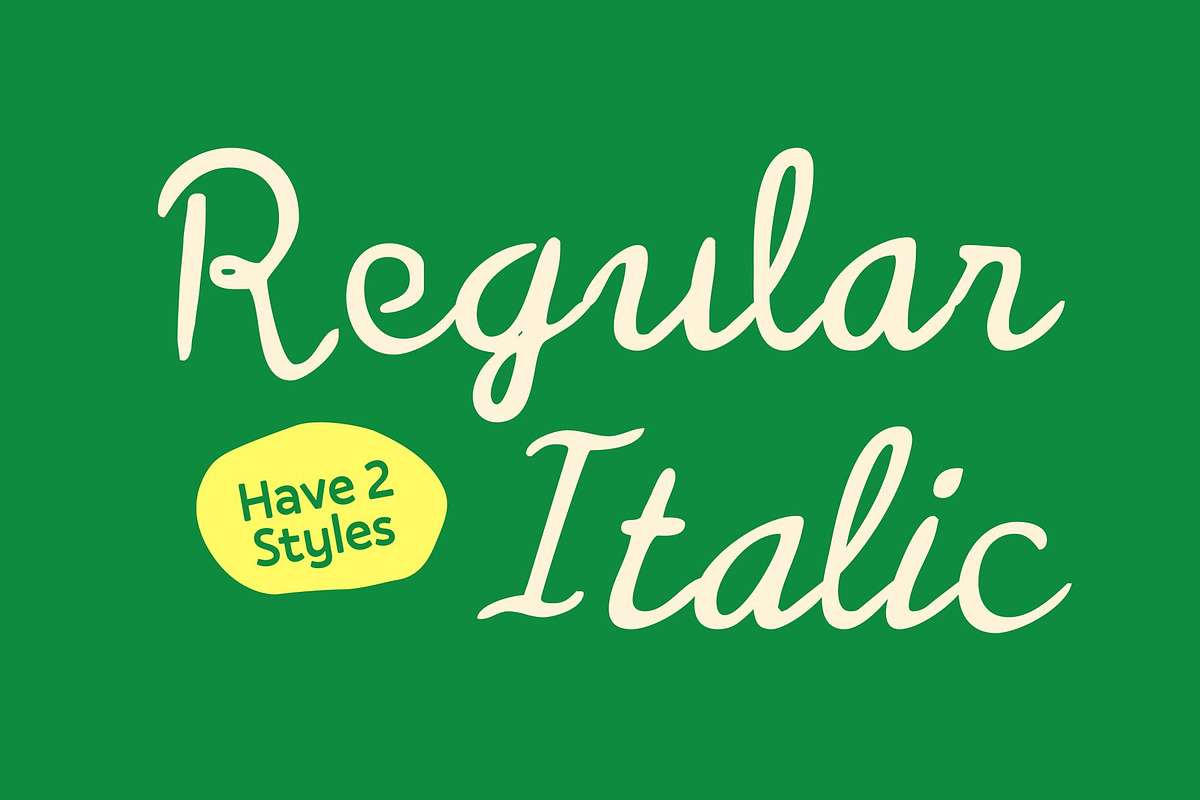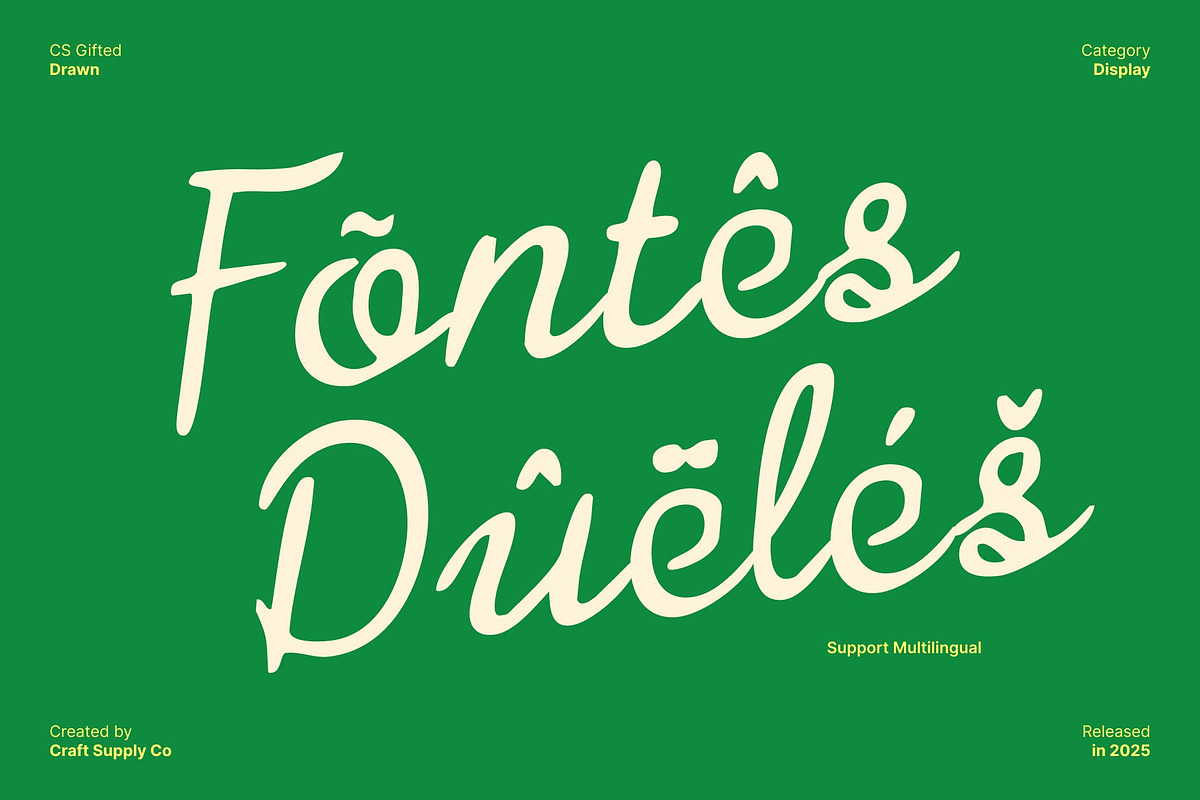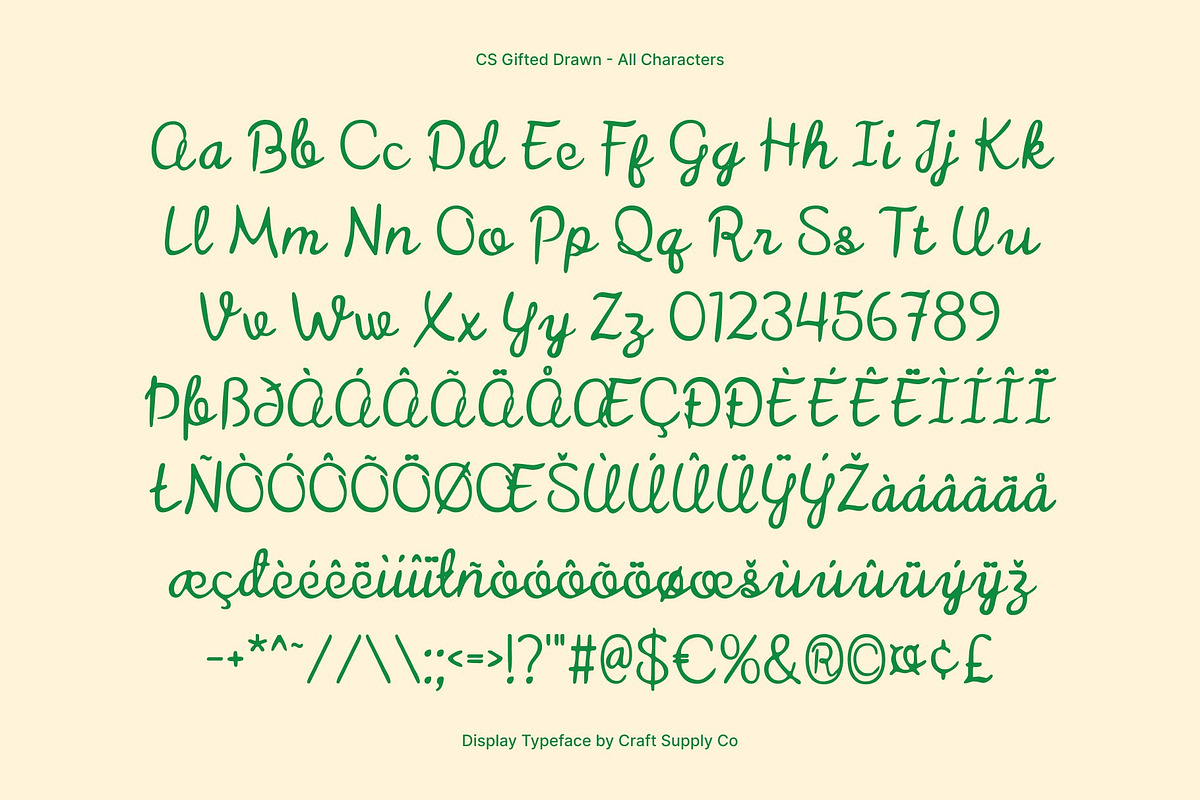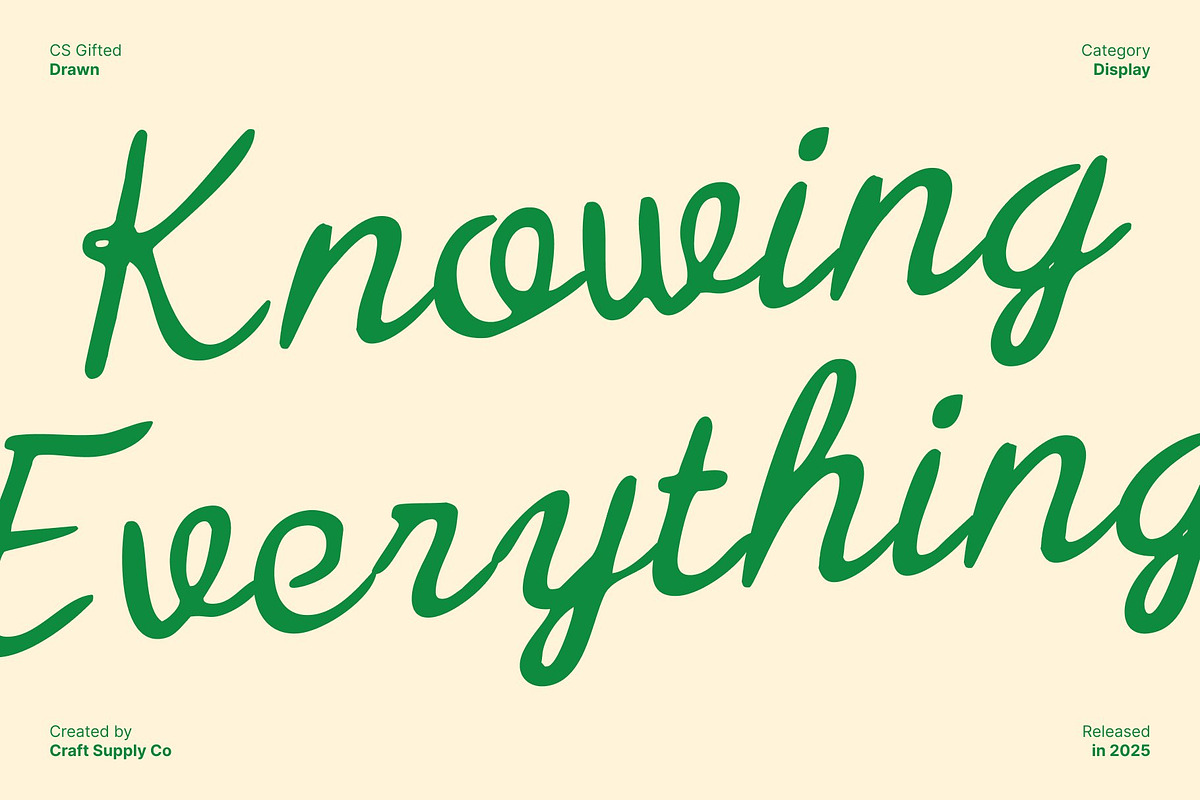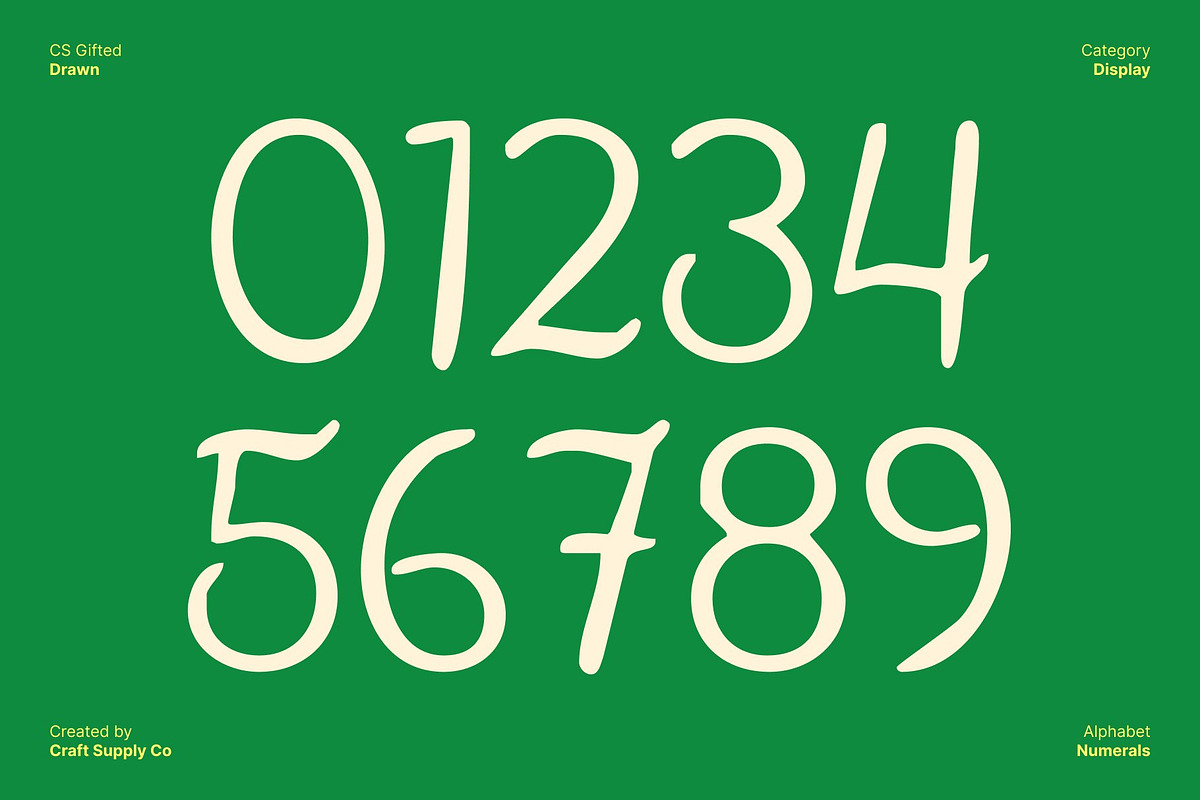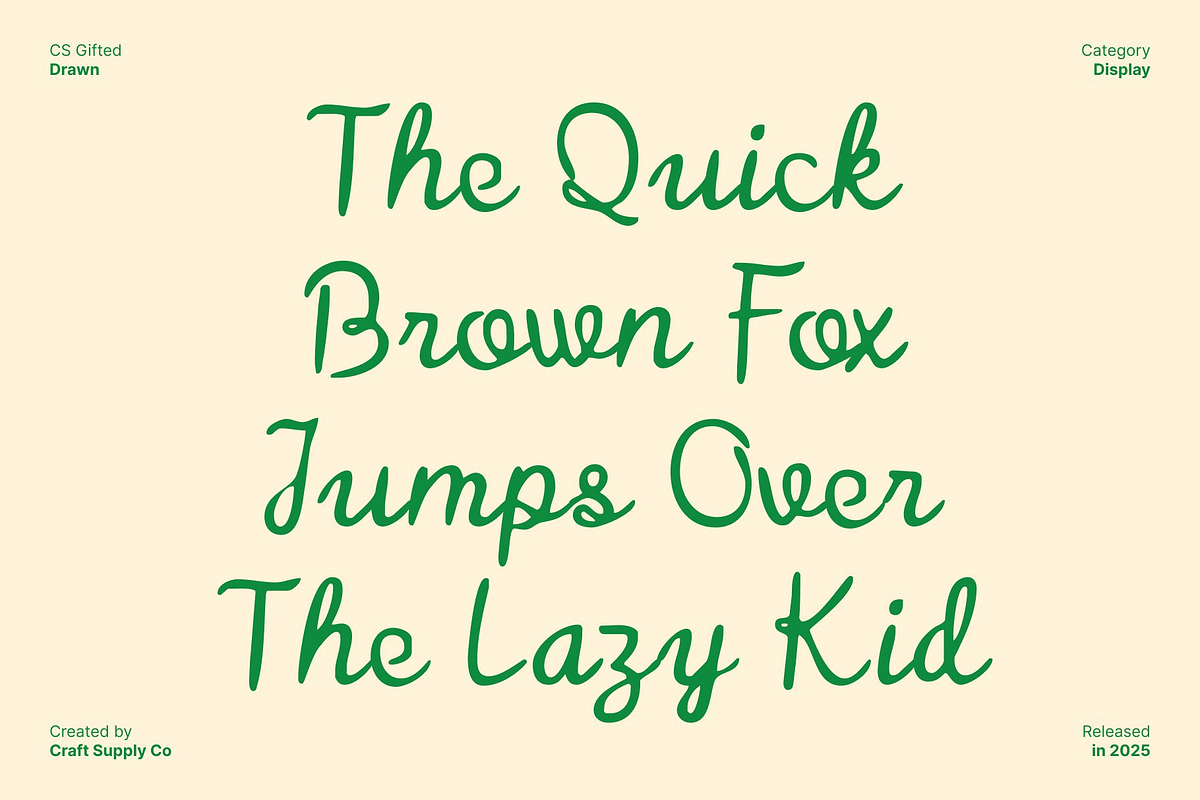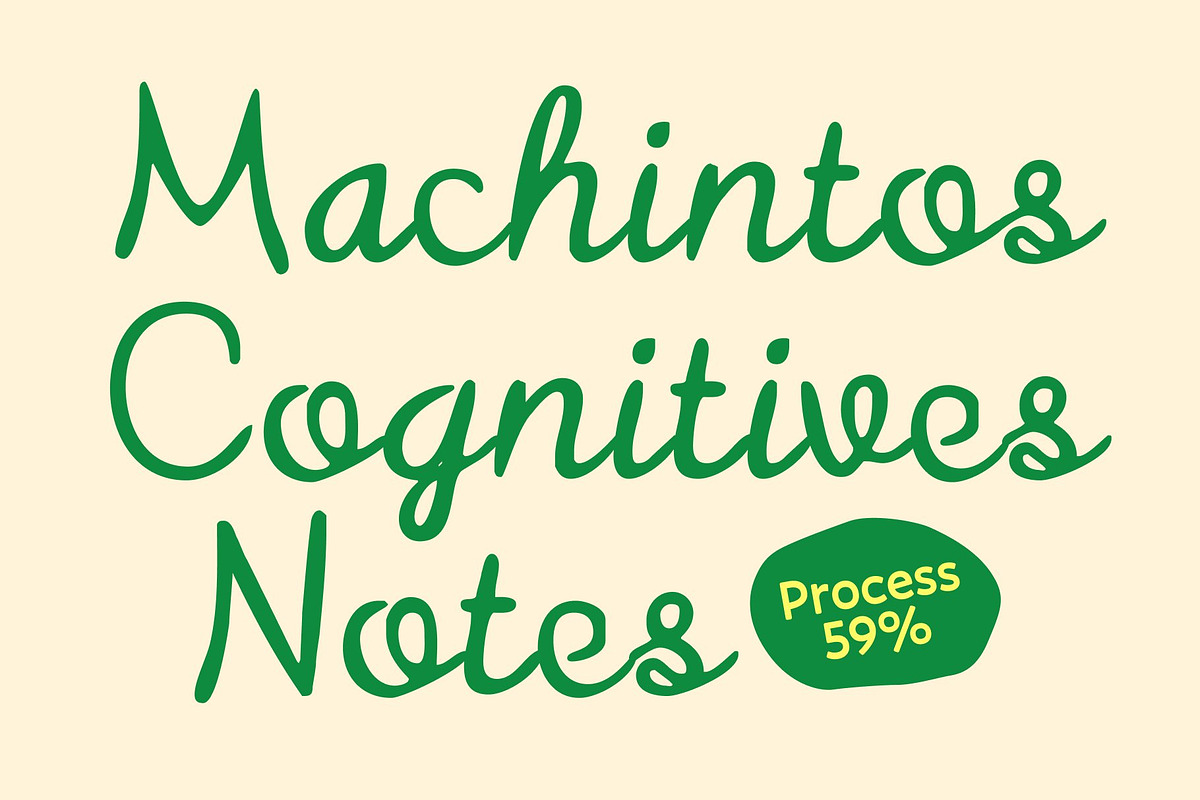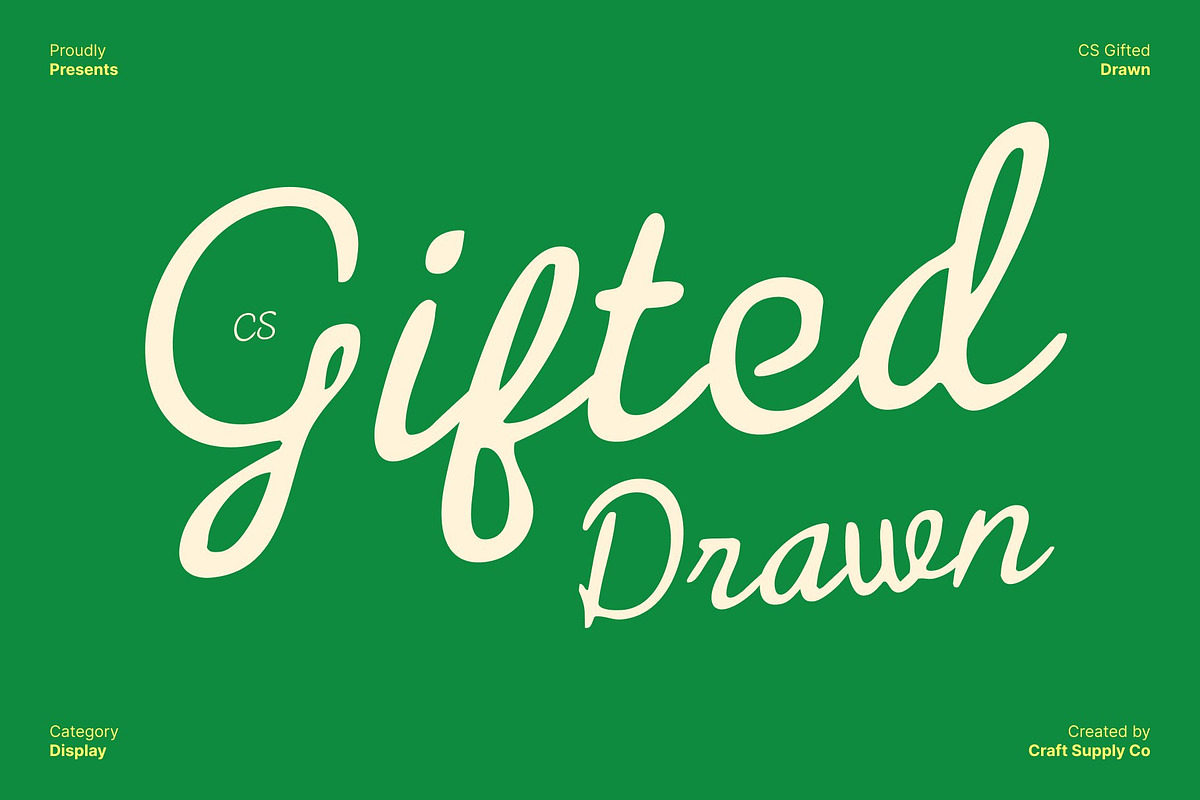
CS Gifted Drawn
CS Gifted Drawn – Delicate and Modern Script Font
Graceful Handcrafted Elegance This is a delicate script font that blends smooth, flowing strokes with subtle handcrafted details. Its elegant cursive forms create a refined and artistic look, giving each letter a personal and expressive presence. The drawn effect adds a natural, handcrafted touch, making the font feel warm, inviting, and unique.
Creative Flourishes with Style Designed with gentle curves and precise rhythm, features creative flourishes that elevate its personality and charm. Every glyph carries an artistic character, adding visual interest and sophistication to your designs. The drawn style enhances the font’s individuality, making it stand out while maintaining legibility and balance.
Perfect for Branding and Special Projects Ideal for branding, wedding invitations, lifestyle content, fashion graphics, and premium editorial layouts, this font adds elegance and modernity to any creative project. Its clean, structured forms ensure readability, while the flowing script and handcrafted details create a luxurious, artistic impression that captivates viewers.
Modern Script with Versatile Appeal This font delivers a contemporary script aesthetic that is both delicate and expressive. It’s perfect for designers seeking a typeface that combines sophistication, creativity, and charm, making every project feel stylish, personal, and memorable.